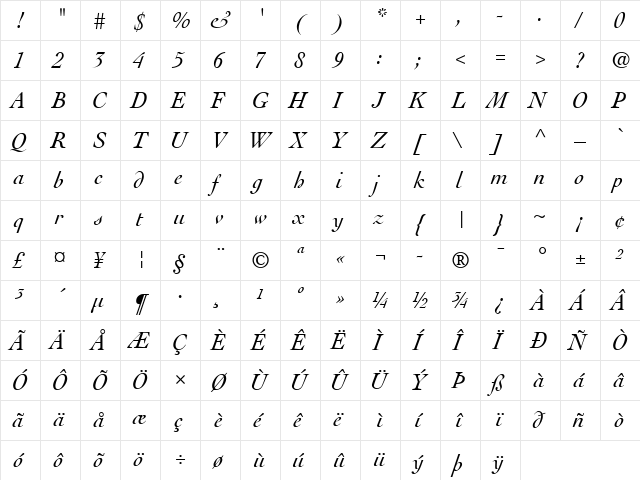
Cochin LT Italic
Design Context for Cochin LT Typeface
Cochin LT is a composed and adaptable typeface that performs quietly and consistently across a wide range of design contexts. The dynamic lean of this cut emphasises speed and emphasis in any layout. The delicate stroke weight brings airiness and refinement to layouts.
Pro Tip: Try Cochin LT for annotation and caption copy alongside an upright companion — the contrast in angle creates a dynamic but ordered typographic system.